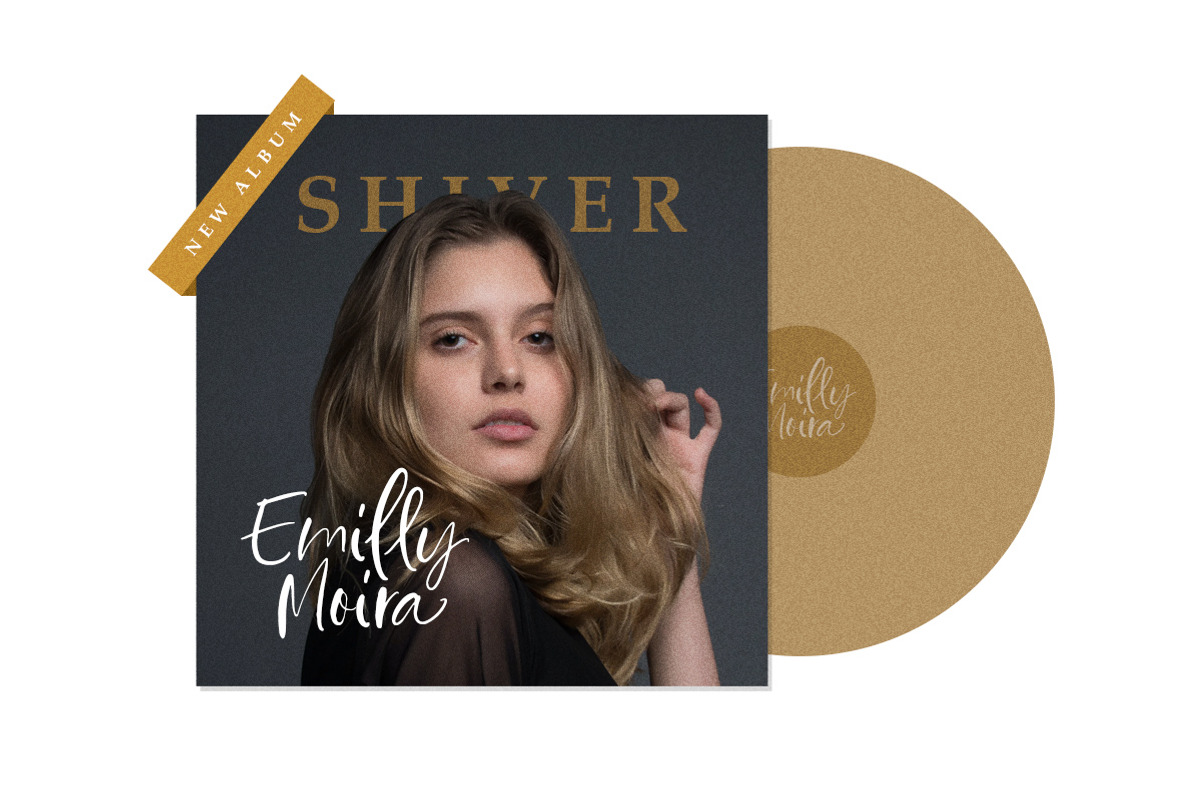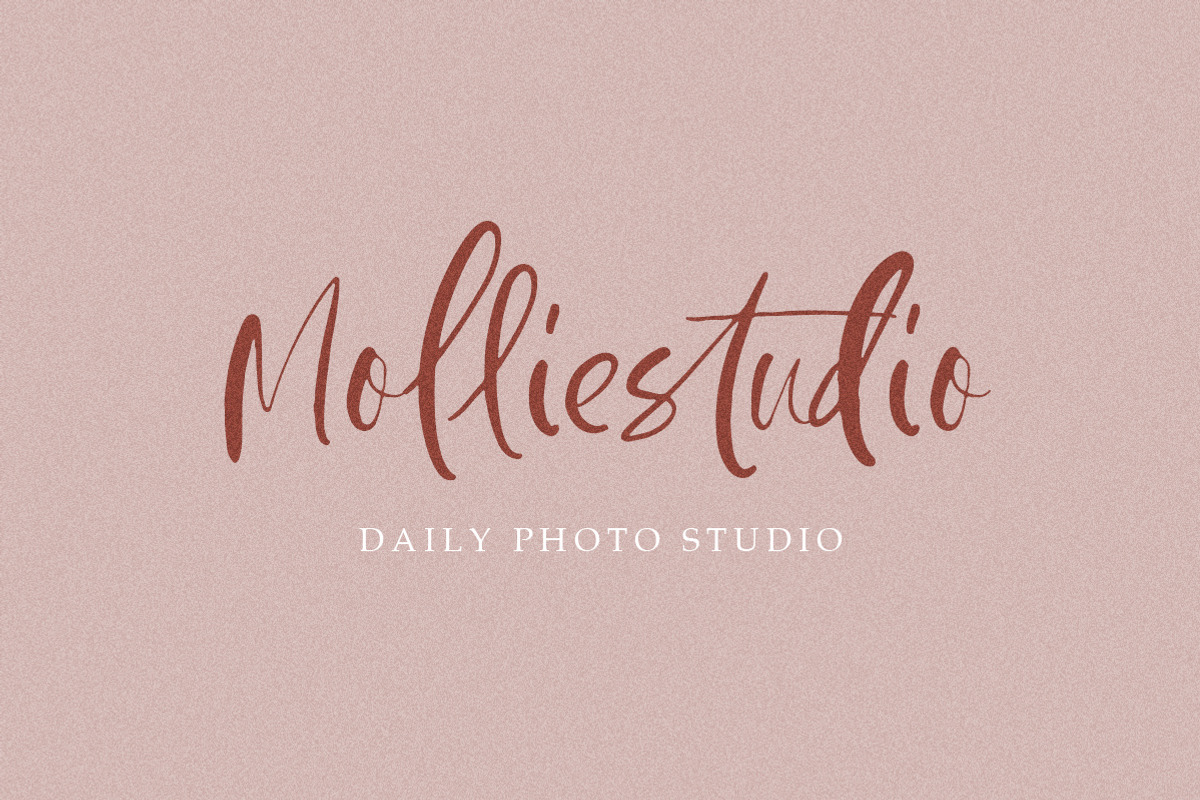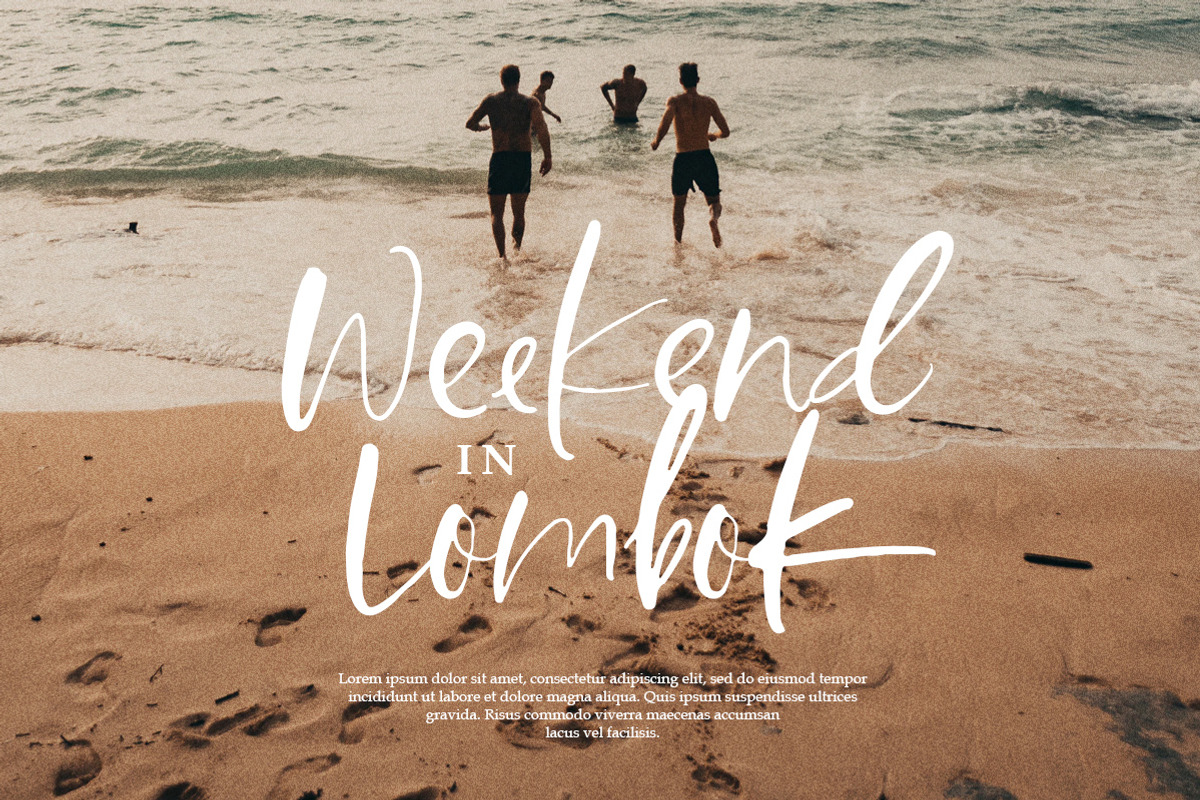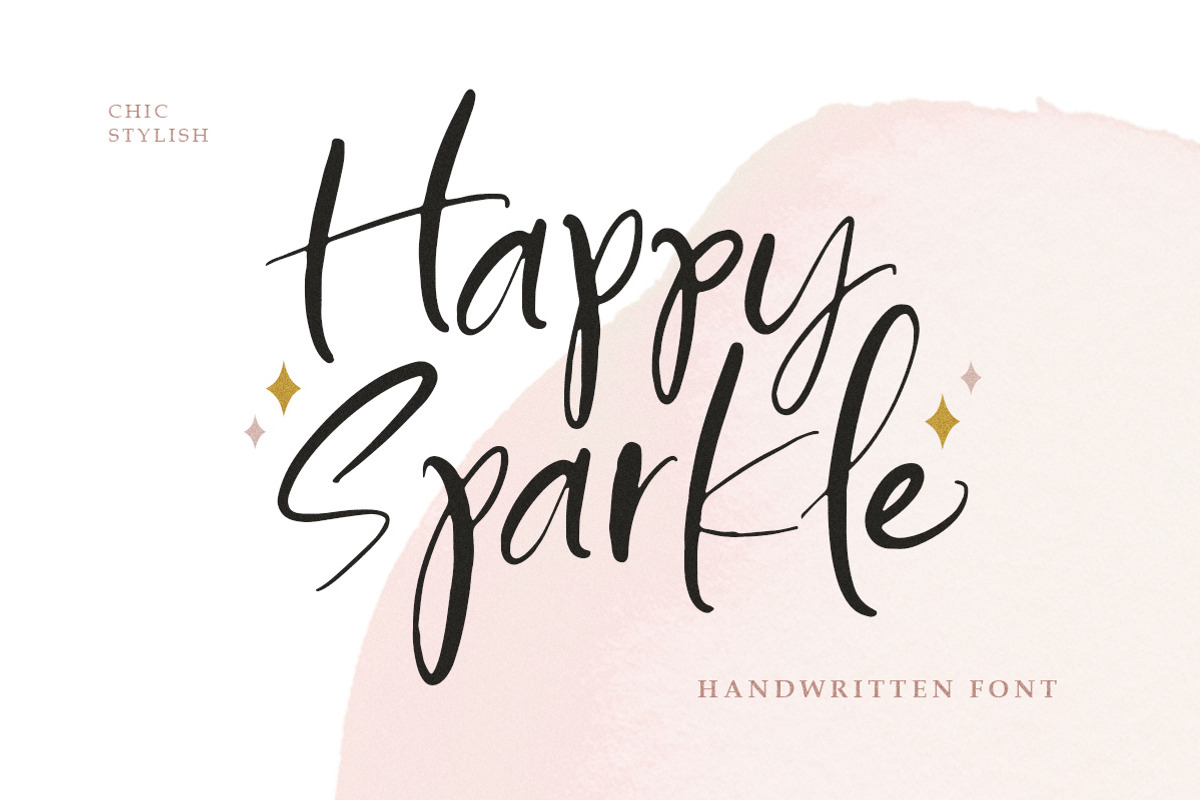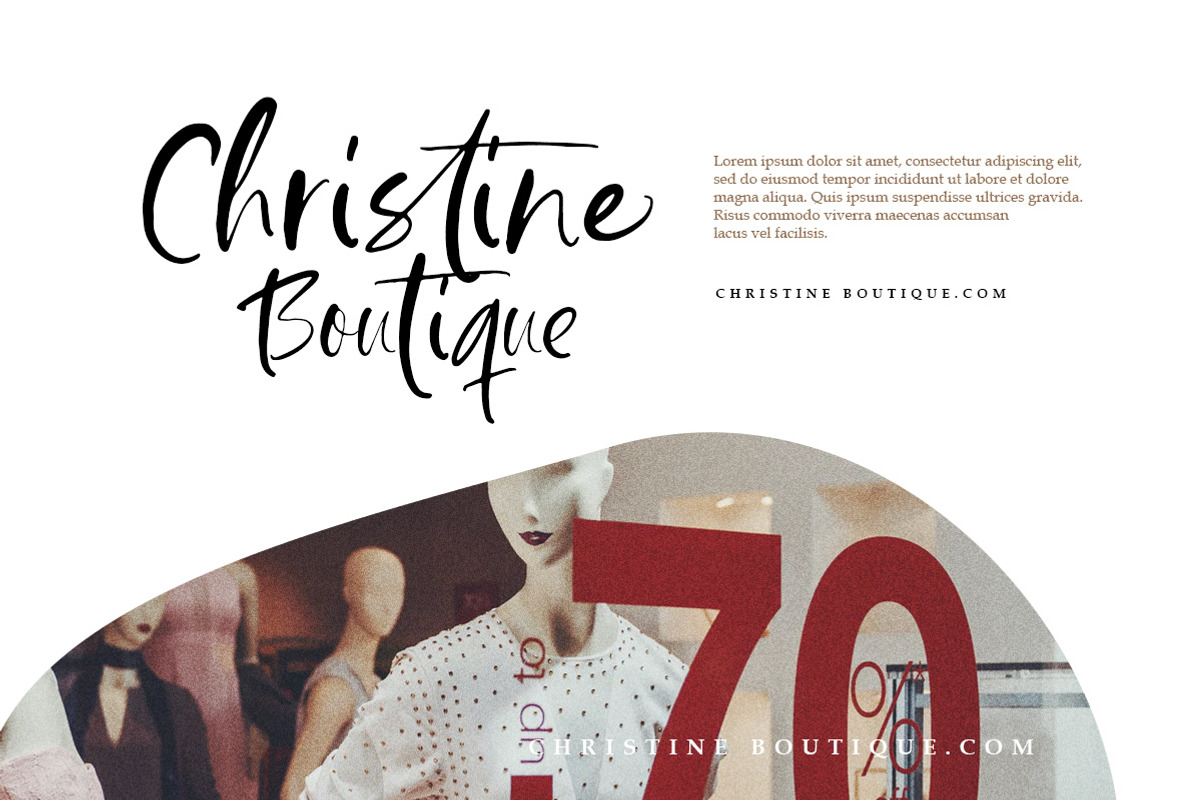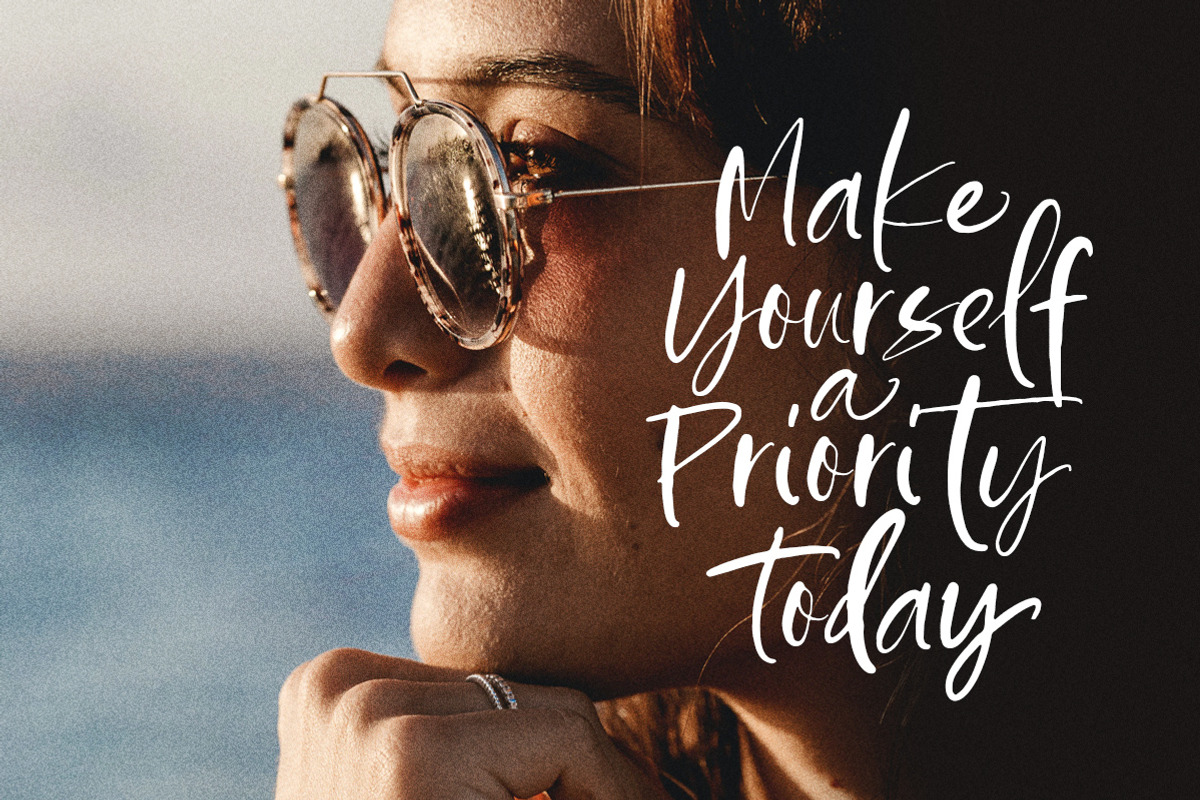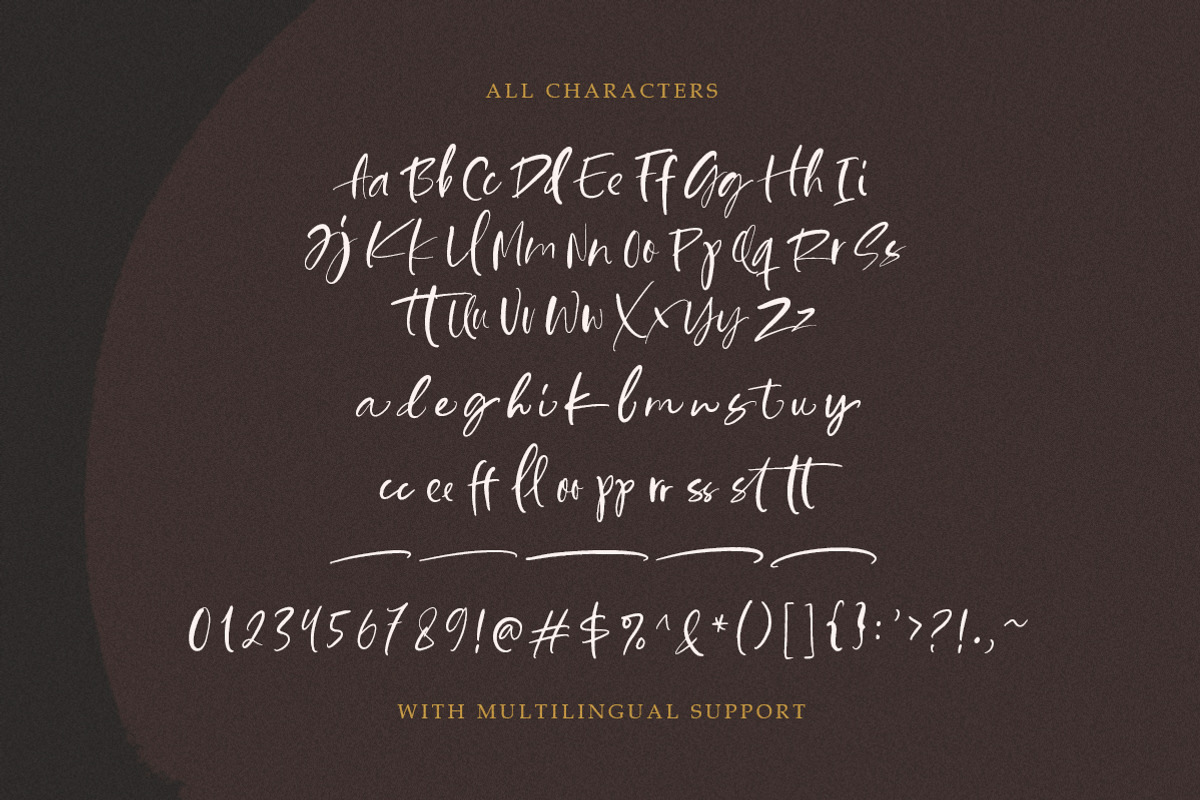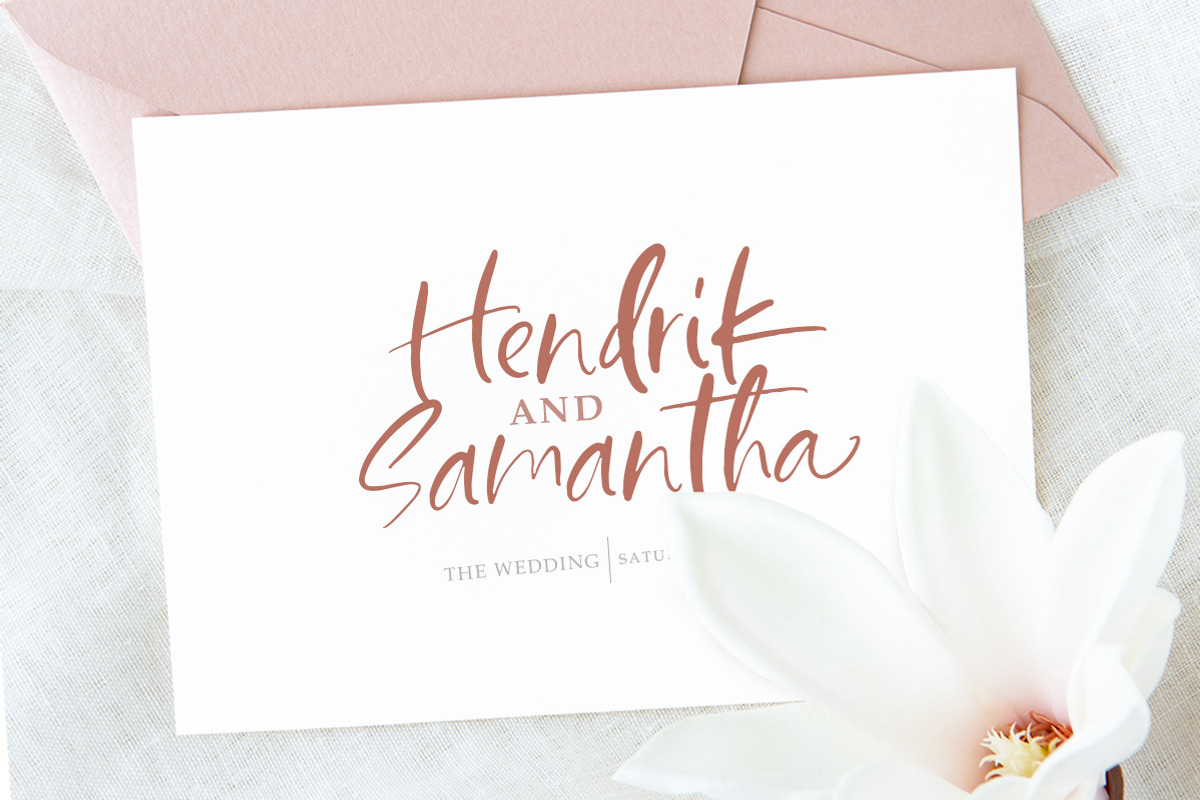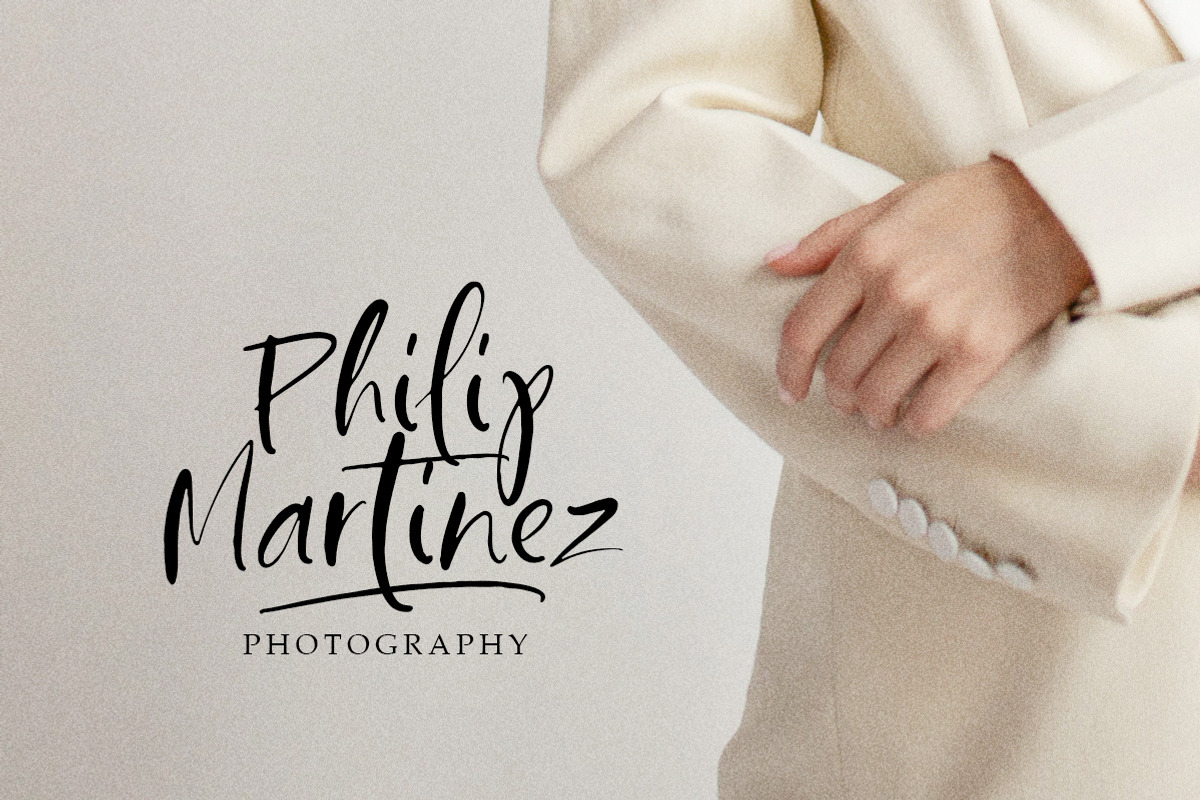
Happy Sparkle - Handwritten Font
Introducing, Happy sparkle! a happy handwritten font that will bring your design into a happy and fun mood. this font is perfect for branding, packaging, logotype, headline, wedding invitation, etc.
- alternates and ligatures
- swash